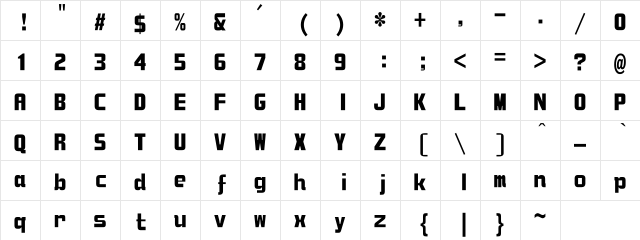
DFZongYiBoldU-B5 Regular
Design Context for DFZongYiBoldU-B5 Typeface
DFZongYiBoldU-B5 is a composed and adaptable typeface that performs quietly and consistently across a wide range of design contexts. Its bold stroke weight gives it real presence on the page.